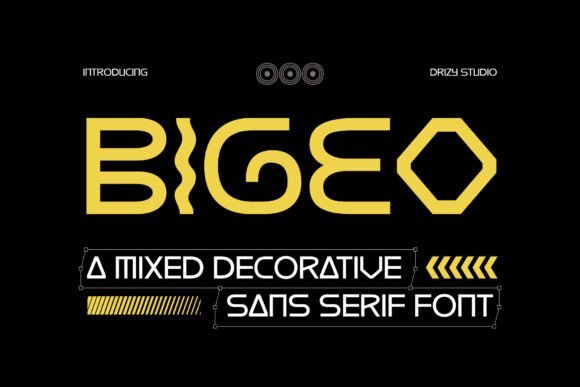
Unlocking the Power of Creativity with the Bigeo Font
Have you ever found yourself stuck in a creative rut, struggling to bring your vision to life? Maybe it’s the perfect font that’s been missing from your design. That’s where the Bigeo Font comes in – a captivating typeface that’s about to revolutionize the way you create.
This modern geometric mixed font is designed to strike a perfect balance between sleek professionalism and creative flair. With its clean lines and unique decorative elements, Bigeo Font effortlessly blends the precision of geometric design with the freedom of artistic expression. Whether you’re a seasoned designer or just starting out, this font is a valuable addition to your toolkit, offering a versatile and stylish way to bring your ideas to life.
Bigeo Font Key Features
- Character Set: The font features a comprehensive character set, including Latin, Cyrillic, and Greek alphabets, as well as a wide range of punctuation and symbol glyphs.
- Unique Characteristics: The font’s distinctive geometric shapes and clean lines make it highly legible, even at small font sizes. Its unique design also lends itself well to use in digital and print media.
- Scalability: The font is designed to be highly scalable, allowing it to be used effectively in a wide range of applications, from body text to headlines and titles.
Bigeo Font Review
I’ve had the chance to dive into the Bigeo font, and I must say, it’s an interesting addition to the world of typography. ✨ One thing that stands out is its unique blend of modern and vintage elements, making it a great choice for designers looking for something with a bit of character.
Here are a few things that I think work well with Bigeo:
- Its versatility: Bigeo can be used for a wide range of projects, from logos and branding to body text and headings.
- Its unique style: Bigeo’s blend of modern and vintage elements makes it a great choice for designers looking to add some personality to their projects.
- Its legibility: Despite its unique style, Bigeo is still very readable, making it a great choice for body text and other long-form content.
- Its lack of consistency: While Bigeo’s unique style is part of its charm, it can also make it difficult to use consistently throughout a project.
- Its limited character set: Bigeo’s character set is not as comprehensive as some other fonts, which may limit its use in certain projects.
Overall, I think Bigeo is a solid choice for designers looking for a unique and versatile font. While it may have its limitations, its strengths make it a great addition to any designer’s toolkit. ⚠️ Just be aware of its limitations and use it thoughtfully.
Tips for Getting the Most Out of Bigeo Font
Use Bigeo Font to add a touch of elegance to your designs. Here are some tips:
- Pair Bigeo Font with other fonts to create a unique and eye-catching combination.
- Use Bigeo Font for headings and titles to make a statement.
Bigeo Font is perfect for:
- Brand logos and identity designs.
Alternatives to Bigeo Font for Designers
Merriweather is a classic serif font that is ideal for body text, especially for books, articles, and other written content. It’s a great choice for designers who want a timeless and elegant look.
Comparison to Bigeo Font: While Bigeo Font has a more modern and sleek feel, Merriweather has a traditional and sophisticated look. Bigeo Font is more suitable for digital interfaces, whereas Merriweather excels in print materials.
Montserrat is a sans-serif font that is perfect for headlines and titles. It’s a great choice for designers who want a clean and modern look.
Comparison to Bigeo Font: Montserrat has a more urban and edgy feel compared to Bigeo Font. While Bigeo Font has a more minimalist approach, Montserrat is bolder and more eye-catching.